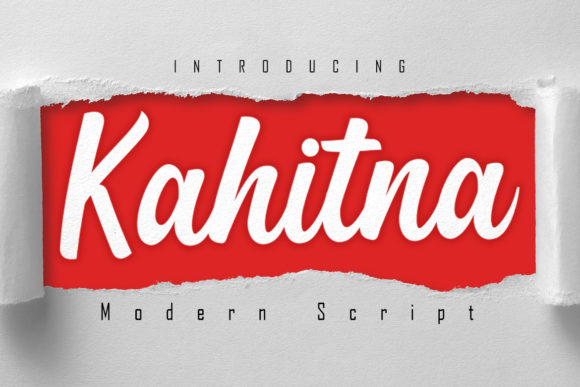
Kahitna: A Script Typeface That Makes Campaigns Click
Tuesday morning, 9:47 AM. I am staring at a half-finished Instagram story for a product launch, and something feels off. The photo is crisp, the offer is clear, but the text overlay looks like it was an afterthought. The headline reads “New Drop. This Friday.” and right now, it has zero energy. I swap the font to Kahitna, adjust the spacing once, and suddenly the graphic breathes. That is the moment I remember why typography is never a minor detail in campaign design.
Kahitna is a handwritten font that carries the warmth of real ink without losing the polish a commercial asset needs. It comes with a set of ligatures that make the letter connections feel fluid, not robotic. For anyone building content for a brand, a shop, or a content channel, this kind of natural rhythm in a typeface is rare. Most scripts look good on paper but fall apart when you overlay them on a busy photo or shrink them down for a mobile preview. Kahitna holds its shape.
Why a Handwritten Font Belongs in Your Campaign Workflow
When I plan a campaign, I usually start with a grid of assets: a hero image for the website, three Instagram posts, two Stories, one banner for email, and maybe a Pinterest pin if the product fits. At first, I reach for a reliable sans serif for body copy and a serif for headers. But when the campaign needs personality—when the message is about something personal, handmade, or emotionally driven—a script font like Kahitna bridges the gap between the brand voice and the visual tone.
In a recent promotion for a limited-edition product, I used Kahitna for the headline on every asset. The phrase “Only 50 Available” appeared across Stories, a reel cover, and a square post. Each version used the same ligature-rich Kahitna treatment. The result was a visual thread that tied the campaign together without needing a matching color palette or a consistent photo style. The font itself became the signature.
Where Kahitna Works Best in Digital Content
Kahitna is not a body text font. I would never set a long paragraph in it, and I do not recommend anyone try. Where it shines is in display roles: short headlines, callouts, quote cards, product labels, and logo-style text. In my workflow, I use it for three specific asset types most often.
Social Media Graphics and Reel Covers
Social feeds move fast. A user scrolls past a post in under a second. If the text does not register immediately, the scroll continues. Kahitna works well here because its handwritten curves feel familiar, like something a friend might write on a package. In a reel cover for a seasonal sale, I paired Kahitna with a clean sans serif for the date and price. The headline “Winter Edit” appeared in Kahitna at a large size. The cover held attention long enough for the viewer to stop and tap.
YouTube Thumbnails and Video Titles
Thumbnails are a unique challenge. They are tiny, crowded, and compete with recommendations from ten other channels. I have tested Kahitna in thumbnails for a tutorial series. The font’s ligatures keep the word shape tight, which helps readability at small sizes. For a video titled “Build a Capsule Wardrobe,” the script treatment made the text feel approachable rather than instructional. It set the right expectation before anyone clicked play.
Email Banners and Landing Page Headers
Email marketing often feels like a race against the spam folder and the delete button. A strong header can buy an extra second of attention. In a recent email banner for a webinar promotion, I placed the event name in Kahitna over a dark background. The contrast was clean, and the ligatures prevented any awkward letter gaps that sometimes happen with script fonts on screens. On the landing page that followed, the same header treatment created a seamless transition from inbox to browser.
Readability Advice for Mobile Screens and Fast Feeds
I test every font on an actual phone before I finalize a campaign set. Kahitna holds up well at 36px and above, but I keep a few rules in mind. First, never use it at small sizes for critical information like prices or dates. Those details belong in a supportive sans serif. Second, use high contrast backgrounds. On a light image, I add a subtle shadow or a dark overlay strip behind the text. On a dark background, the font reads clearly without extra treatment. Third, avoid placing Kahitna over busy textures like patterned fabric or foliage. It needs breathing room to keep its handwritten charm visible.
Pairing Kahitna with Other Fonts for a Cohesive System
No single font carries an entire campaign. I always pair Kahitna with a reliable partner. A clean sans serif like a geometric or neo-grotesque gives the campaign a modern anchor. For example, in a product launch, the product name appeared in Kahitna while the tagline and specifications were set in a simple sans serif. The contrast between the expressive script and the neutral sans serif created a clear visual hierarchy without shouting.
Sometimes I pair it with a serif font for a more editorial feel. The serif handles longer text, while Kahitna acts as the decorative title. In a Pinterest campaign for a home decor brand, the pin titles used Kahitna and the descriptions used a serif. The combination felt curated but not stiff. Avoid pairing Kahitna with another script or handwritten font. Two expressive typefaces in one layout compete for attention and blur the hierarchy. Let Kahitna be the star in the headline and let everything else support it.
Keep it for the short, punchy lines. Pair it with a neutral sans serif. Test it on a phone screen. And when the campaign goes live, watch how a font that feels personal can make a message that was already clear suddenly feel stronger. That is the difference between a graphic that fills a slot and a graphic that stops a scroll.